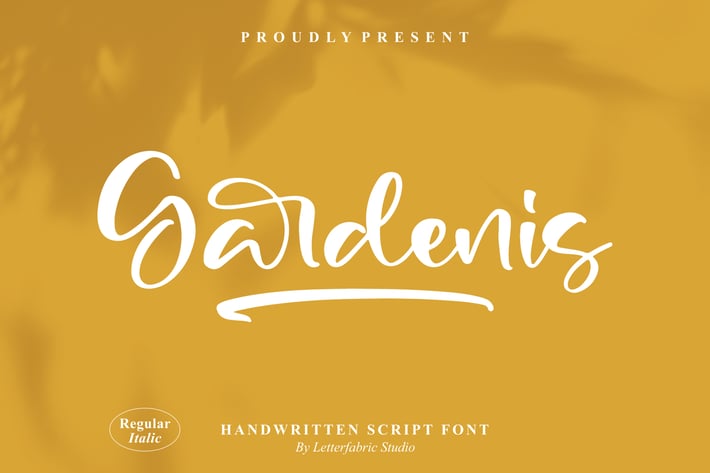
Gardenis Handwritten Script Font
Gardenis is a charming handwritten script font that brings a touch of personality and elegance to your designs. With smooth curves, natural strokes, and beautifully flowing ligatures, Gardenis mimics the feel of authentic hand lettering—perfect for wedding stationery, branding, Instagram quotes, and lifestyle blogs.
It includes a full set of swashes, stylish ligatures, and multilingual characters, making it both flexible and creative. Whether you're designing a romantic invitation or a chic signature logo, Gardenis delivers expressive, graceful results.
+ Uppercase & lowercase
+ Swashes & Ligatures
+ Multilingual support